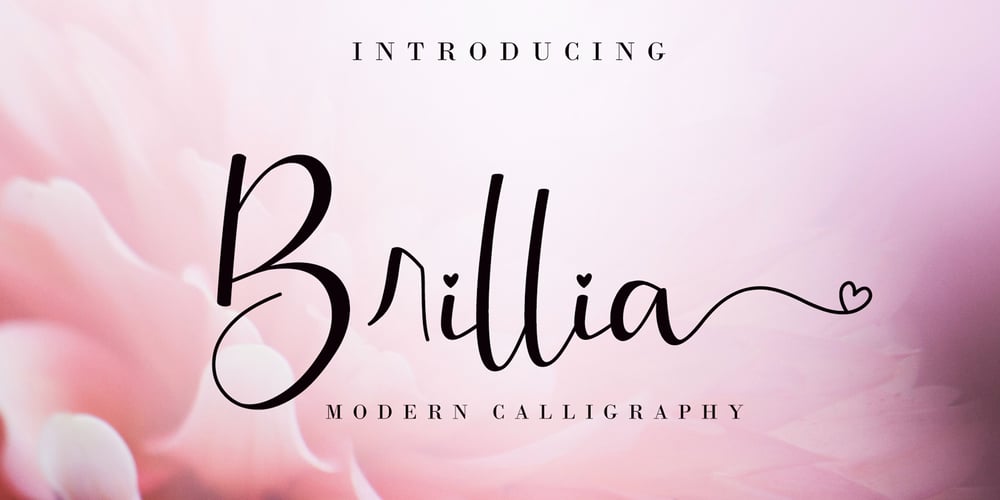
Brillia Calligraphy
Brillia Calligraphy font
Brillia Calligraphy Font Family was designed by Agung Eko Nugroho and published by AEN Creative Studio. Brillia Calligraphy contains 2 styles and family package options. Brillia is a sweet modern calligraphy, soft hand-lettered handwritten font. Fall in love with its authentic feel and use it to create gorgeous wedding invitations, beautiful stationary art, eye-catching social media posts, and cute greeting cards.